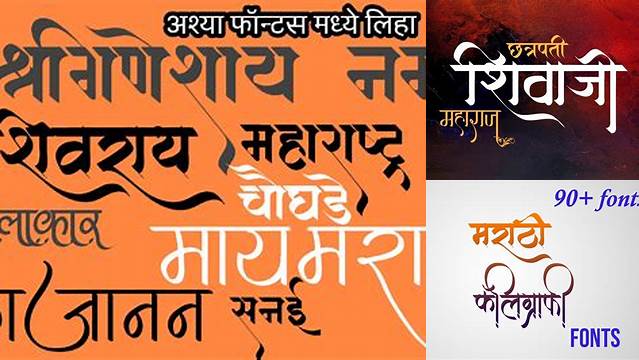
Marathi Fonts Generator: Cool & Stylish Text Styles!
Hey guys! Ever wanted to spice up your Marathi text with some cool and stylish fonts? Well, you've come to the right place! In this article, we're diving deep into the world of Marathi fonts generator, exploring everything from why they're awesome to how you can use them to make your messages, posts, and designs stand out. So, buckle up and let's get started!
1. Understanding the Basics of Marathi Fonts
Before we jump into generating fancy fonts, let's quickly cover the basics. Marathi, a beautiful and expressive language spoken primarily in Maharashtra, India, has its own unique script. This script, derived from the Brahmi script, lends itself to a variety of artistic interpretations. A Marathi fonts generator simply takes your plain Marathi text and transforms it into various stylish font styles. These generators use different algorithms and character mappings to create eye-catching text that can be used across various platforms, from social media to graphic design projects. Understanding the nuances of the Marathi script is crucial to appreciating the beauty and versatility offered by these font generators. Using the right font can significantly enhance the impact of your message, making it more engaging and visually appealing.
2. Why Use a Marathi Fonts Generator?
Why should you even bother using a Marathi fonts generator? Great question! Think about it – plain text can be a bit boring, right? Using different fonts adds personality and flair to your content. Imagine you're creating a poster for a Marathi cultural event. A standard font might get the message across, but a stylized Marathi font will instantly grab attention and create a more memorable impression. These generators are incredibly useful for social media posts, invitations, presentations, and even personal projects like greeting cards. They provide a quick and easy way to inject creativity into your Marathi text. Plus, with the increasing digital presence of Marathi speakers, using unique fonts helps your content stand out in the crowded online space. Whether you're aiming for a traditional look or a modern vibe, a Marathi fonts generator offers the tools to express yourself effectively.
3. Different Types of Marathi Fonts Available
When it comes to Marathi fonts generator, you're not limited to just a few styles. There's a whole universe of fonts out there! You'll find fonts that mimic traditional calligraphy, modern sans-serif styles, playful cursive fonts, and everything in between. Some fonts are designed for readability, making them perfect for body text in articles or websites. Others are more decorative, ideal for headings, titles, and eye-catching graphics. You can even find fonts that incorporate elements of Devanagari, the script used for Hindi, to create a unique blend of styles. Exploring the various options is part of the fun! Take some time to experiment with different fonts and see what resonates with your message and target audience. A Marathi fonts generator often categorizes fonts by style, making it easier to find the perfect match for your project.
4. How to Use a Marathi Fonts Generator: A Step-by-Step Guide
Using a Marathi fonts generator is usually super simple. Most online tools have a similar interface. First, you'll find an input box where you can type or paste your Marathi text. Then, the generator will process your text and display it in various font styles below. All you have to do is scroll through the options and choose the one you like best. Once you've found your perfect font, you can usually copy the text directly or download it as an image. Some generators even offer options to customize the font size and color. Remember to double-check the generated text for any encoding issues or character display problems, especially if you're using a less common font. With just a few clicks, you can transform your ordinary Marathi text into something extraordinary using a Marathi fonts generator!
5. Exploring Popular Marathi Font Styles
Let's talk about some popular Marathi font styles you might encounter in a Marathi fonts generator. You'll often see fonts inspired by traditional calligraphy, featuring elegant strokes and curves. These fonts are perfect for formal occasions or projects that require a touch of sophistication. There are also modern sans-serif fonts that offer a clean and contemporary look, ideal for websites and digital content. Cursive fonts add a personal and handwritten feel, great for invitations and informal messages. Some generators even offer playful and whimsical fonts that are perfect for children's books or lighthearted designs. Exploring these different styles can help you develop a sense of which fonts work best for various purposes. Don't be afraid to experiment and find fonts that reflect your unique style and message. The right Marathi fonts generator will offer a wide variety of choices to suit your needs.
6. Integrating Marathi Fonts in Social Media
Social media is a fantastic platform to showcase your creativity with Marathi fonts. Using a Marathi fonts generator can make your posts, stories, and bios stand out from the crowd. Imagine crafting a witty Marathi caption in a stylish font or designing an eye-catching profile picture with your name in a unique typeface. The key is to choose fonts that are both visually appealing and easy to read on smaller screens. Decorative fonts can be great for headlines or short phrases, but for longer text, stick to fonts with good readability. Many social media platforms allow you to copy and paste text generated from these tools directly into your posts. This makes it incredibly easy to add a touch of personality to your social media presence. By strategically using different fonts, you can enhance engagement and create a more memorable online experience for your followers. A Marathi fonts generator empowers you to express yourself creatively in the digital world.
7. Using Marathi Fonts in Graphic Design
For graphic designers, a Marathi fonts generator is an invaluable tool. It allows you to explore a wide range of font styles and find the perfect match for your design projects. Whether you're creating posters, brochures, logos, or website layouts, the right font can make all the difference. Marathi typography has its own unique aesthetic, and using stylized fonts can add authenticity and cultural richness to your designs. Consider the overall tone and message of your project when selecting a font. A formal design might call for a classic and elegant font, while a more casual project might benefit from a playful or modern typeface. Many graphic design software programs allow you to import custom fonts, giving you even more flexibility. By mastering the art of Marathi typography, you can create visually stunning designs that resonate with your target audience. A high-quality Marathi fonts generator will provide the resources you need to elevate your graphic design work.
8. Creating Engaging Content with Marathi Fonts
Creating engaging content is all about capturing your audience's attention and keeping them hooked. Using a Marathi fonts generator can be a powerful way to enhance the visual appeal of your content and make it more memorable. Think about how different fonts can evoke different emotions and convey different messages. A bold and impactful font might be perfect for a call to action, while a softer and more elegant font could be ideal for a heartfelt message. When creating content in Marathi, using stylized fonts not only adds visual interest but also celebrates the beauty of the language. Consider the context of your content when choosing a font. A formal article might benefit from a professional and readable font, while a social media post might be more effective with a fun and eye-catching typeface. By strategically using Marathi fonts, you can create content that is both visually appealing and culturally relevant.
9. Marathi Fonts for Print vs. Digital Media
When using a Marathi fonts generator, it's important to consider the medium for which you're designing. Fonts that look great in print might not translate well to digital screens, and vice versa. For print media, you'll want to choose fonts that are crisp and clear, with good readability at smaller sizes. Serif fonts, with their small decorative strokes, often work well in print. For digital media, sans-serif fonts tend to be more legible, as their clean lines are easier to read on screens. Consider the resolution of the screen or the printing quality when selecting a font. For low-resolution displays, avoid overly decorative or intricate fonts, as they might appear blurry. Test your fonts on different devices and in different browsers to ensure they render correctly. Understanding the nuances of font usage in different media will help you create visually effective designs, no matter the platform. A versatile Marathi fonts generator will offer a range of fonts suitable for both print and digital applications.
10. Best Practices for Choosing Marathi Fonts
Choosing the right Marathi font is an art in itself! Here are some best practices to keep in mind when using a Marathi fonts generator. First, consider your target audience and the message you want to convey. A formal audience might appreciate a traditional font, while a younger audience might respond better to a modern typeface. Readability is key, especially for longer blocks of text. Choose fonts that are easy to read at various sizes. Avoid using too many different fonts in a single design, as this can create a cluttered and unprofessional look. A good rule of thumb is to stick to two or three fonts at most. Pay attention to the spacing and kerning of the font, as this can significantly impact readability. Experiment with different font combinations to see what works best for your project. By following these best practices, you can choose Marathi fonts that enhance your message and create a visually appealing design.
11. Exploring Calligraphic Marathi Fonts
Calligraphic Marathi fonts are a beautiful way to add elegance and tradition to your text. These fonts, often inspired by traditional handwriting styles, feature graceful strokes and intricate details. Using a Marathi fonts generator, you can find a wide variety of calligraphic fonts, ranging from classic scripts to more modern interpretations. These fonts are perfect for formal invitations, certificates, and other projects that require a touch of sophistication. Calligraphic fonts can also add a unique flair to headings and titles, creating a visual focal point. When using calligraphic fonts, it's important to ensure readability. Choose fonts that are clear and legible, even at smaller sizes. Avoid using calligraphic fonts for large blocks of text, as they can be tiring to read. Instead, use them sparingly to highlight key words or phrases. By mastering the art of calligraphic Marathi typography, you can create designs that are both visually stunning and culturally rich.
12. Modern and Contemporary Marathi Fonts
If you're looking for a sleek and contemporary look, modern Marathi fonts are the way to go. These fonts, often characterized by clean lines and simple shapes, offer a fresh and updated take on Marathi typography. A Marathi fonts generator will typically include a wide selection of modern fonts, from minimalist sans-serif styles to more geometric designs. Modern fonts are ideal for websites, digital content, and branding materials that require a contemporary feel. They can also be used effectively in print media, such as brochures and posters. When choosing a modern font, consider the overall tone and message of your project. A minimalist font might be perfect for a corporate website, while a more playful font could be suitable for a creative campaign. Experiment with different font weights and styles to create visual hierarchy and add interest to your designs. By embracing modern Marathi fonts, you can create designs that are both stylish and impactful.
13. Marathi Fonts for Headlines and Titles
Headlines and titles play a crucial role in capturing attention and conveying the main message of your content. Using a distinctive Marathi font can make your headlines stand out and draw readers in. A Marathi fonts generator offers a wide variety of fonts that are perfect for headlines, from bold and impactful typefaces to elegant and refined scripts. When choosing a font for your headline, consider the overall tone and style of your content. A serious topic might call for a strong and authoritative font, while a lighthearted subject could benefit from a more playful typeface. Experiment with different font sizes and weights to create visual hierarchy and emphasize key words. Avoid using overly decorative fonts for headlines, as they can be difficult to read. Instead, opt for fonts that are clear, legible, and visually appealing. By mastering the art of headline typography, you can create content that grabs attention and keeps readers engaged.
14. Marathi Fonts for Body Text and Paragraphs
While headlines are designed to grab attention, body text is responsible for conveying the bulk of your message. Choosing a readable Marathi font for body text is essential for ensuring that your content is accessible and engaging. A Marathi fonts generator will typically offer a range of fonts that are specifically designed for body text, characterized by their clarity and legibility at smaller sizes. Serif fonts, with their small decorative strokes, often work well for body text in print media, while sans-serif fonts tend to be more legible on digital screens. When selecting a font for body text, consider the overall length of your content. For longer articles or documents, choose a font that is easy to read for extended periods. Pay attention to the spacing and kerning of the font, as this can significantly impact readability. Avoid using overly decorative or stylized fonts for body text, as they can be distracting. By prioritizing readability, you can create content that is both informative and enjoyable to read.
15. Combining Different Marathi Fonts Effectively
Using multiple Marathi fonts in a single design can add visual interest and create a more dynamic look. However, it's important to combine fonts strategically to avoid creating a cluttered or confusing design. A Marathi fonts generator can help you experiment with different font combinations and find pairings that work well together. A good rule of thumb is to choose fonts that complement each other, rather than compete. For example, you might pair a bold sans-serif font for headlines with a more traditional serif font for body text. Consider the overall tone and style of your project when selecting font combinations. A formal design might call for a more conservative pairing, while a creative project could benefit from a more daring combination. Avoid using more than two or three fonts in a single design, as this can create a visually chaotic look. By mastering the art of font pairing, you can create designs that are both visually appealing and effectively communicate your message.
16. Free vs. Paid Marathi Fonts: What's the Difference?
When exploring a Marathi fonts generator, you'll often encounter both free and paid fonts. Understanding the differences between these options can help you make informed decisions about which fonts to use for your projects. Free fonts can be a great option for personal projects or for trying out different styles. However, free fonts may have limitations in terms of licensing, quality, and the range of styles available. Paid fonts, on the other hand, typically offer higher quality designs, more extensive character sets, and broader licensing options. Paid fonts are often designed by professional typographers and undergo rigorous testing to ensure optimal readability and performance. When choosing between free and paid fonts, consider the scale and scope of your project. For professional designs or projects with a large audience, investing in paid fonts can be a worthwhile investment. For smaller, personal projects, free fonts may be sufficient. Always check the licensing terms of any font you use, whether it's free or paid, to ensure that you're using it legally.
17. Licensing and Usage Rights for Marathi Fonts
Understanding licensing and usage rights is crucial when using any font, including Marathi fonts generated by a Marathi fonts generator. Font licenses dictate how you can legally use a font, including whether you can use it for commercial projects, distribute it to others, or embed it in websites or applications. Free fonts often come with more restrictive licenses than paid fonts. Some free fonts may only be used for personal projects, while others may allow for commercial use with certain limitations. Paid fonts typically offer more flexible licensing options, allowing you to use the font for a wider range of projects and applications. Always read the licensing agreement carefully before using any font, to ensure that you're complying with the terms. If you're unsure about the licensing terms, contact the font designer or foundry for clarification. Violating font licensing agreements can lead to legal consequences, so it's always best to err on the side of caution. By understanding font licensing, you can use Marathi fonts responsibly and legally.
18. Troubleshooting Common Marathi Font Issues
Sometimes, you might encounter issues when using Marathi fonts generated by a Marathi fonts generator. Common problems include font rendering errors, character display issues, and compatibility problems with certain software or platforms. If you're experiencing font rendering errors, try clearing your browser cache or restarting your computer. Sometimes, outdated software or browser extensions can interfere with font rendering. If certain characters are not displaying correctly, ensure that you have the correct font encoding selected. Marathi fonts typically use Unicode encoding, so make sure your software or platform supports this encoding. If you're having compatibility issues, try using a different font format. OpenType fonts are generally more compatible across different platforms than older font formats. If you're still having problems, consult the font documentation or contact the font designer for assistance. Troubleshooting font issues can sometimes be frustrating, but with a little patience and persistence, you can usually find a solution.
19. The Future of Marathi Typography
The world of Marathi typography is constantly evolving, with new fonts and design trends emerging all the time. A Marathi fonts generator is at the forefront of this evolution, providing designers and content creators with the tools they need to express themselves creatively. As technology advances, we can expect to see even more innovative and sophisticated Marathi fonts, pushing the boundaries of typography and design. The rise of digital media has created new opportunities for Marathi typography, allowing designers to experiment with dynamic and interactive font styles. We may also see the development of more specialized Marathi fonts, designed for specific applications such as web design, mobile apps, or virtual reality. The future of Marathi typography is bright, with exciting possibilities for creativity and innovation. By embracing new technologies and design trends, we can ensure that Marathi fonts continue to play a vital role in preserving and promoting the beauty of the Marathi language.
20. Creating Your Own Marathi Font
Feeling ambitious? Why not try creating your own Marathi font! Designing a font is a complex and challenging process, but it can also be incredibly rewarding. While a Marathi fonts generator provides existing fonts, creating your own allows for complete customization. You'll need specialized font design software, such as FontLab Studio or Glyphs, to create and edit font characters. The process involves drawing each character glyph, adjusting spacing and kerning, and testing the font for readability and consistency. Designing a Marathi font requires a deep understanding of the Marathi script and its nuances. You'll need to consider the traditional forms of the characters, as well as the overall style and aesthetic you want to achieve. Creating a font can take months or even years, but the end result is a unique and personal typeface that you can use for your own projects or even share with others. If you're passionate about typography and the Marathi language, creating your own font is a rewarding endeavor.
21. Marathi Fonts for Branding and Identity
Your brand identity is the face of your business, and typography plays a crucial role in conveying your brand's personality and values. Using a distinctive Marathi font can help your brand stand out and create a memorable impression. A Marathi fonts generator can be a valuable tool for exploring different font styles and finding the perfect match for your brand. When choosing a Marathi font for your brand, consider your target audience and the message you want to communicate. A traditional font might be suitable for a brand that emphasizes heritage and craftsmanship, while a modern font could be a better fit for a brand that is innovative and forward-thinking. Consistency is key when it comes to branding. Use the same Marathi font across all of your marketing materials, from your logo and website to your social media profiles and print ads. This will help create a cohesive and recognizable brand identity. By carefully selecting and using Marathi fonts, you can strengthen your brand and connect with your audience on a deeper level.
22. Marathi Fonts and Cultural Significance
Marathi fonts are more than just a means of written communication; they are an integral part of Marathi culture and heritage. The unique shapes and forms of the Marathi script reflect the artistic traditions and cultural values of the Marathi-speaking people. Using stylized Marathi fonts can add a sense of authenticity and cultural richness to your designs. A Marathi fonts generator can help you explore fonts that are rooted in traditional Marathi calligraphy and design. When using Marathi fonts, consider the cultural context of your message. A formal event or publication might call for a font that reflects traditional Marathi aesthetics, while a more contemporary project could benefit from a modern interpretation of the script. By understanding the cultural significance of Marathi fonts, you can use them to create designs that are both visually appealing and culturally relevant. Preserving and promoting the beauty of the Marathi script is essential for maintaining the cultural identity of the Marathi-speaking community.
23. Marathi Fonts in Website Design
The typography you choose for your website can have a significant impact on user experience and brand perception. Using well-chosen Marathi fonts can make your website more engaging, readable, and visually appealing. A Marathi fonts generator can help you find fonts that are optimized for web use, ensuring that your text displays correctly across different browsers and devices. When selecting Marathi fonts for your website, prioritize readability. Choose fonts that are clear and legible, even at smaller sizes. Sans-serif fonts are generally a good choice for body text on websites, as their clean lines are easy to read on screens. Use Marathi fonts strategically to create visual hierarchy and emphasize key elements on your page. Headings, titles, and calls to action can benefit from bolder or more stylized fonts. Ensure that your chosen fonts are compatible with your website's design and overall aesthetic. By carefully considering your font choices, you can create a website that is both visually stunning and user-friendly.
24. Marathi Fonts in Mobile App Design
Designing for mobile apps requires careful attention to typography, as screen real estate is limited and readability is paramount. Using appropriate Marathi fonts can make your app more user-friendly and visually appealing. A Marathi fonts generator can help you find fonts that are optimized for mobile screens, ensuring that your text is clear and legible on smaller devices. When choosing Marathi fonts for your mobile app, consider the overall design and functionality of the app. A minimalist app might benefit from a clean and simple font, while a more visually rich app could use a more decorative typeface. Pay attention to font size and line height, as these factors can significantly impact readability on mobile screens. Test your fonts on different devices and screen sizes to ensure that they display correctly. Use Marathi fonts strategically to guide users through your app and highlight important information. By carefully selecting your fonts, you can create a mobile app that is both visually appealing and easy to use.
25. Marathi Fonts and Accessibility
Accessibility is an important consideration in design, ensuring that your content is usable by people with disabilities. When choosing Marathi fonts, it's essential to select fonts that are accessible to users with visual impairments or other disabilities. A Marathi fonts generator can help you find fonts that are designed with accessibility in mind, featuring clear character shapes and good readability. Use sufficient contrast between your text and background colors to make your content easier to read. Avoid using overly decorative or stylized fonts, as these can be difficult for some users to decipher. Consider the font size and line height, as well as the spacing between letters and words. Provide alternative text descriptions for images and graphics that contain Marathi text, so that screen readers can convey the information to users with visual impairments. By prioritizing accessibility in your font choices, you can create content that is inclusive and usable by everyone.
26. The Psychology of Marathi Fonts
Did you know that fonts can evoke emotions and influence perceptions? The psychology of typography explores how different font styles can impact the way people perceive your message. When using a Marathi fonts generator, consider the emotional associations of different font styles. Serif fonts, with their traditional appearance, often convey a sense of authority and trustworthiness. Sans-serif fonts, with their clean and modern lines, tend to evoke feelings of innovation and efficiency. Script fonts can add a touch of elegance and personality, while display fonts are designed to grab attention and create a strong visual impact. Think about the emotions you want to evoke in your audience and choose Marathi fonts that align with your message. By understanding the psychology of typography, you can use fonts strategically to influence perceptions and create a stronger connection with your audience.
27. Marathi Fonts for Festive Occasions
Festivals and special occasions are a time for celebration, and using festive Marathi fonts can add a touch of joy and excitement to your designs. A Marathi fonts generator often includes fonts that are specifically designed for festive occasions, featuring decorative elements and vibrant styles. When choosing Marathi fonts for festive occasions, consider the cultural significance of the event. Traditional festivals might call for fonts that reflect the heritage and traditions of the culture, while more contemporary celebrations could benefit from modern and playful typefaces. Use bright colors and bold font styles to create a festive atmosphere. Consider using decorative elements, such as borders or ornaments, to enhance the celebratory feel of your design. By using festive Marathi fonts, you can create designs that capture the spirit of the occasion and bring joy to your audience.
28. Marathi Fonts for Educational Materials
Typography plays a crucial role in the effectiveness of educational materials. Using clear and readable Marathi fonts can help students engage with the content and improve their learning outcomes. A Marathi fonts generator can help you find fonts that are specifically designed for educational purposes, prioritizing readability and clarity. When choosing Marathi fonts for educational materials, prioritize fonts that are easy to read for children and students. Avoid using overly decorative or stylized fonts, as these can be distracting and difficult to decipher. Use consistent font styles throughout your materials to create a cohesive and professional look. Consider the font size and line height, ensuring that the text is easy to read for extended periods. Use different font weights and styles to create visual hierarchy and emphasize key concepts. By carefully selecting your fonts, you can create educational materials that are both engaging and effective.
29. Resources for Learning More About Marathi Typography
Want to delve deeper into the world of Marathi typography? There are numerous resources available to help you learn more about the art and science of font design and usage. Online tutorials, articles, and forums can provide valuable insights into Marathi typography principles and best practices. Look for websites and blogs that specialize in typography and graphic design. A Marathi fonts generator itself might offer resources or links to helpful information. Workshops and courses on typography can provide hands-on training and guidance from experienced designers. Books on typography can offer a comprehensive overview of the subject, covering topics such as font history, classification, and usage. By taking advantage of these resources, you can expand your knowledge of Marathi typography and improve your design skills.
30. The Impact of Technology on Marathi Fonts
Technology has had a profound impact on Marathi fonts, transforming the way they are created, used, and distributed. Digital font design software has made it easier than ever to create and customize Marathi fonts, leading to a wider variety of styles and designs. A Marathi fonts generator is a direct result of this technological advancement. The internet has made it possible to access and download Marathi fonts from anywhere in the world, expanding the reach and influence of Marathi typography. Web fonts have enabled designers to use custom Marathi fonts on websites, creating more visually appealing and engaging online experiences. Mobile devices have created new challenges and opportunities for Marathi typography, requiring fonts that are optimized for small screens and mobile reading habits. As technology continues to evolve, we can expect to see even more innovations in the field of Marathi typography, pushing the boundaries of creativity and expression. The future of Marathi fonts is inextricably linked to the advancements in technology, ensuring a dynamic and evolving landscape for years to come.